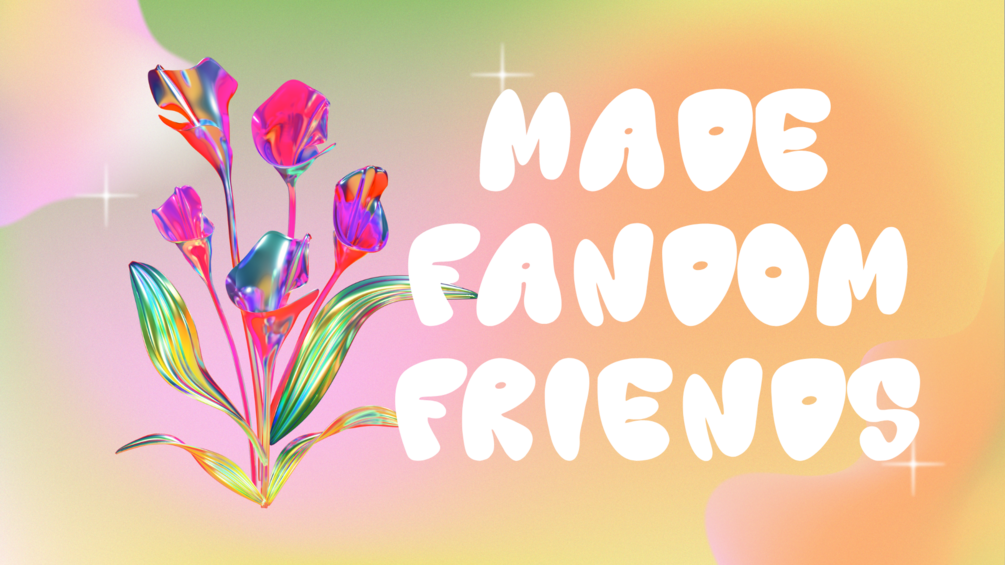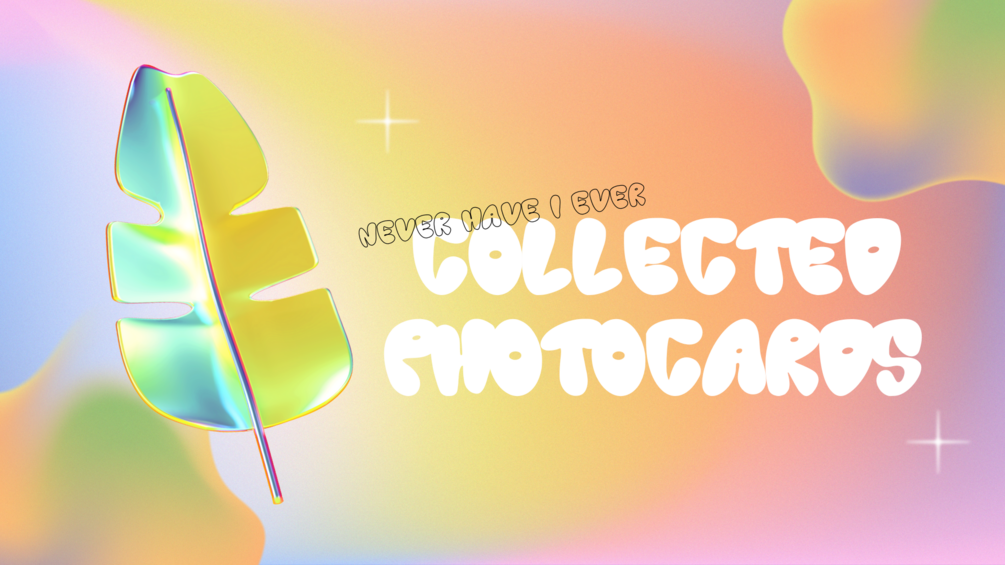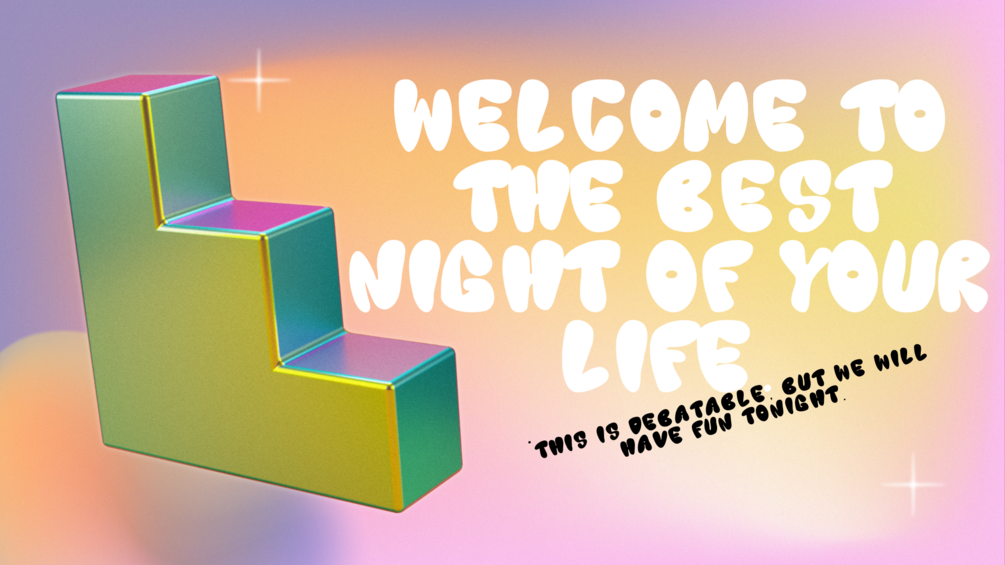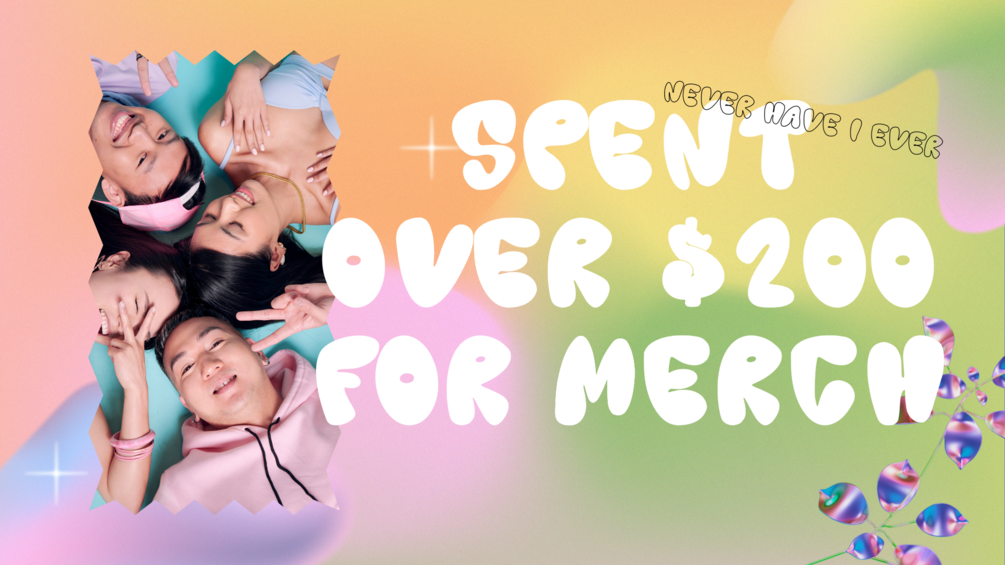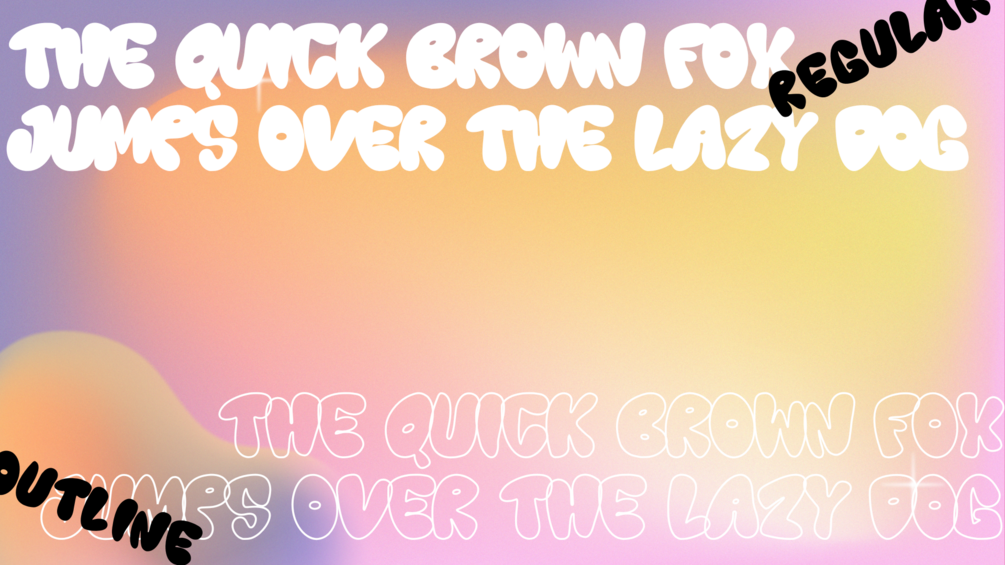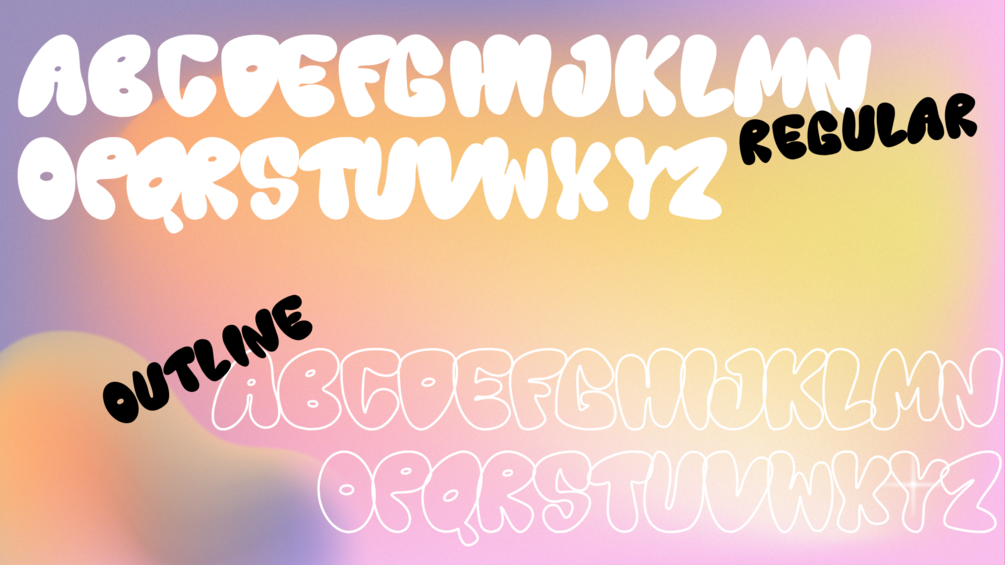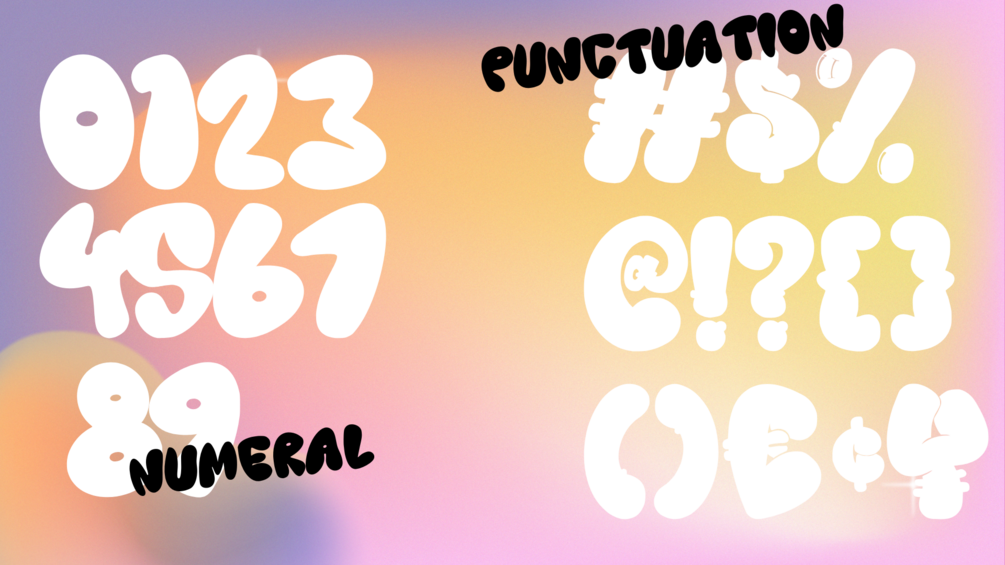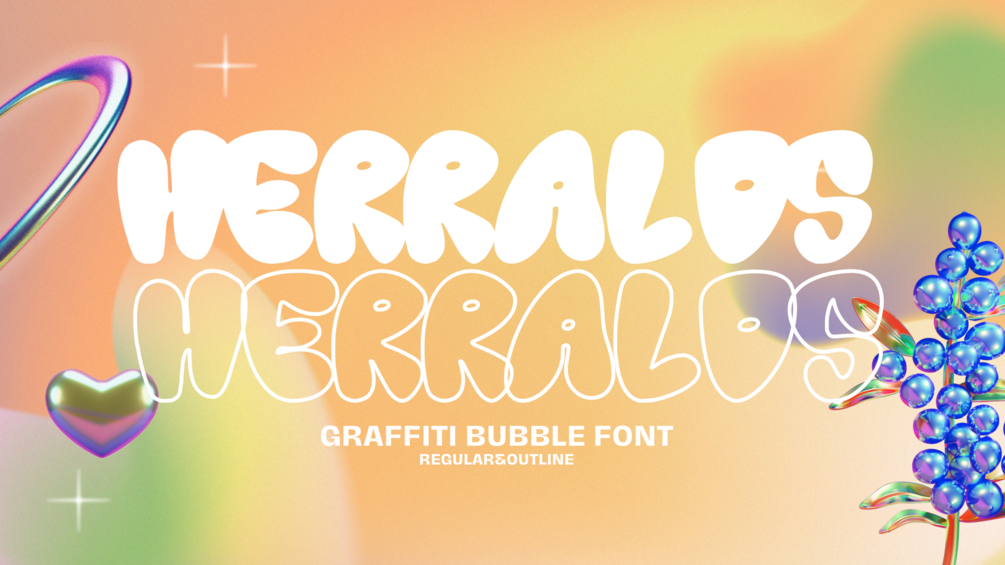
Herralds - Display Font
Herralds is a graffiti display font . Herralds is a free-style font that has the characteristics of street art that shows freedom and is filled with unique characters to make your projects stand out.